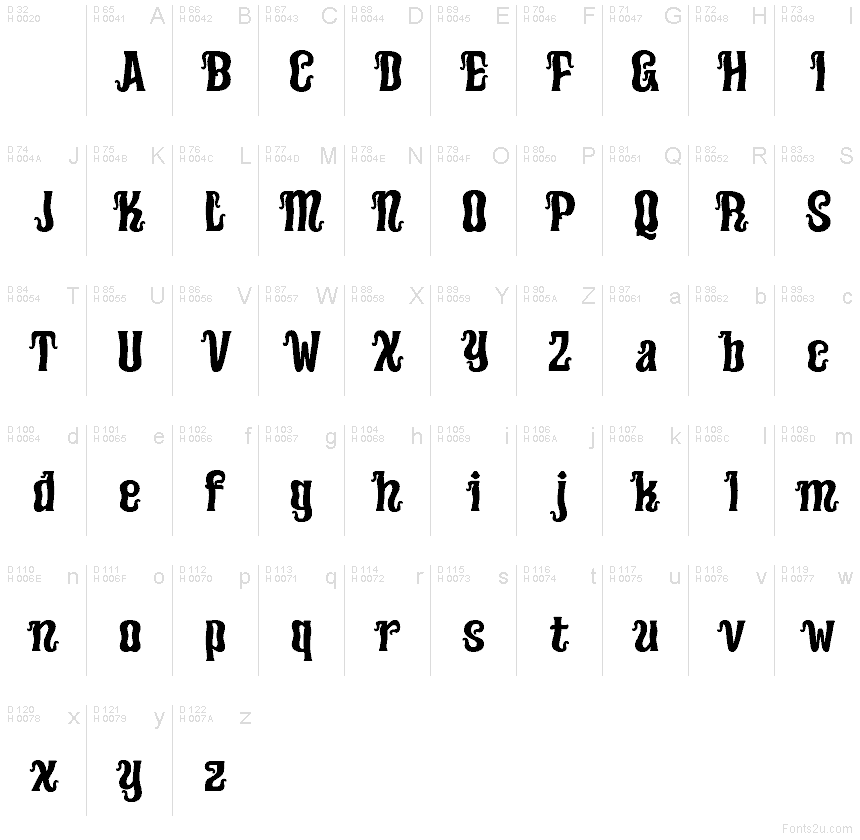
CS Slayer Regular Demo
CS Slayer font is a condensed decorative display font designed by Craft Supply Co. The typeface impresses with its peculiar presentation as the all-caps characters satisfy your desire for a swirled and ornamental style. Use this free artistic flair with its retro-inspired feel for just about any visual project that requires text input.
Designers can experiment by incorporating this font into book covers, poster titles, stationery, product packaging, and special social media posts. CS Slayer additionally looks good on advertising graphics whether it’s published in print or digital format.